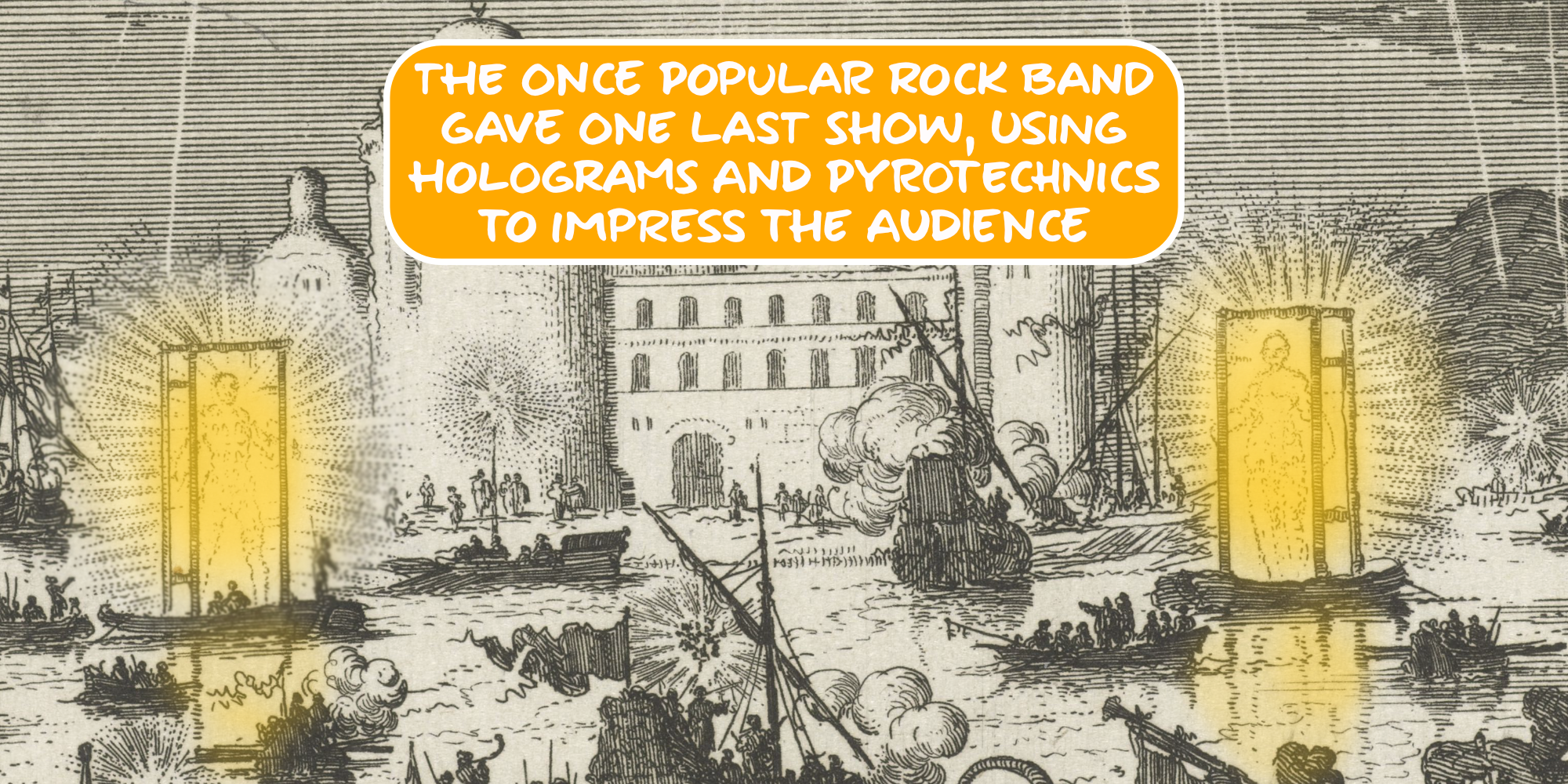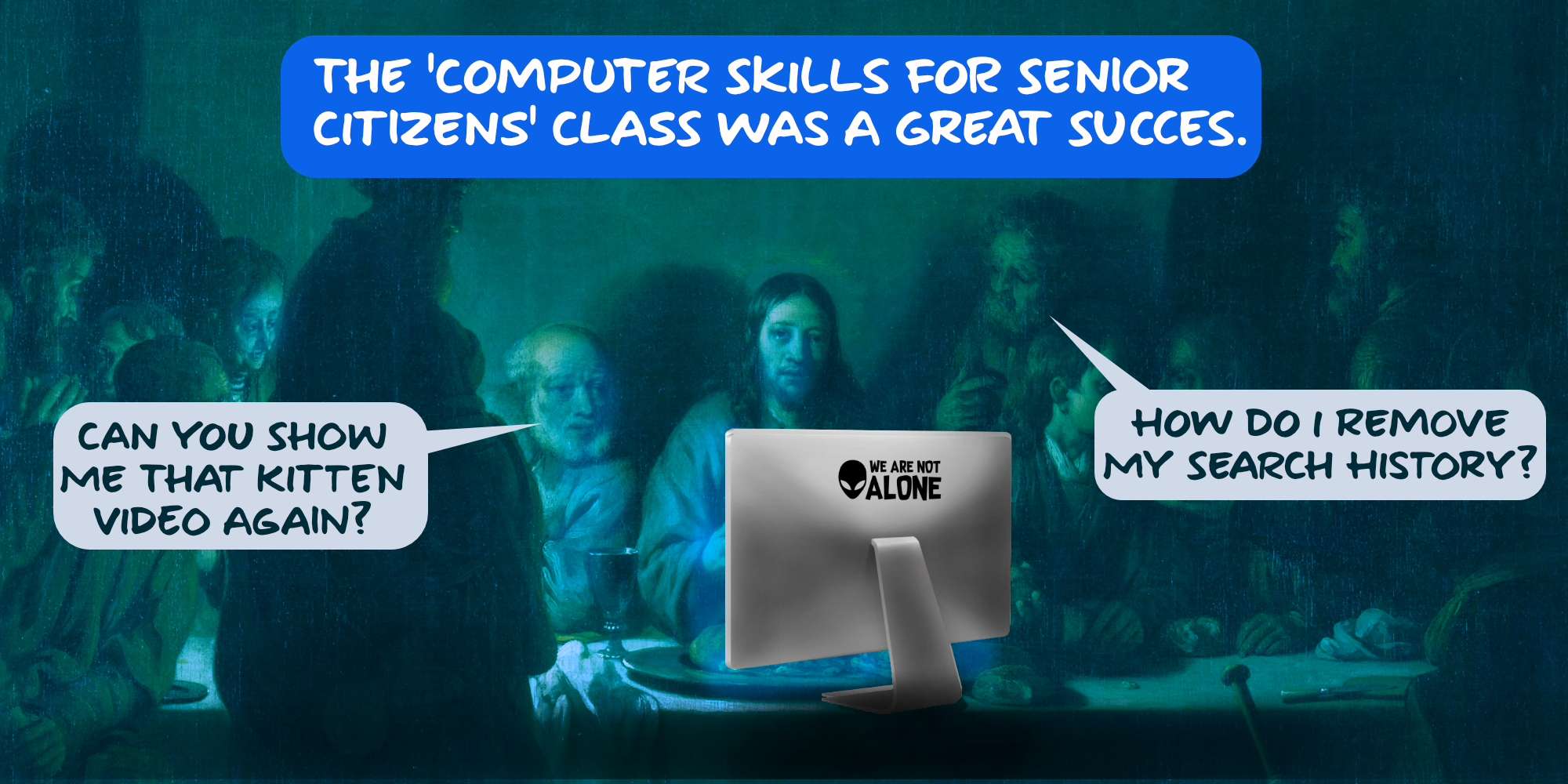
Fully Automatic (2 fonts)
Fully Automatic is a handmade cartoon font: I used a sharpie pen to draw the glyphs onto rough paper. The result is a wobbly, yet quite clean cartoon font. Fully automatic comes with extensive language support and two sets of alternates for the lower case glyphs that cycle as you type.